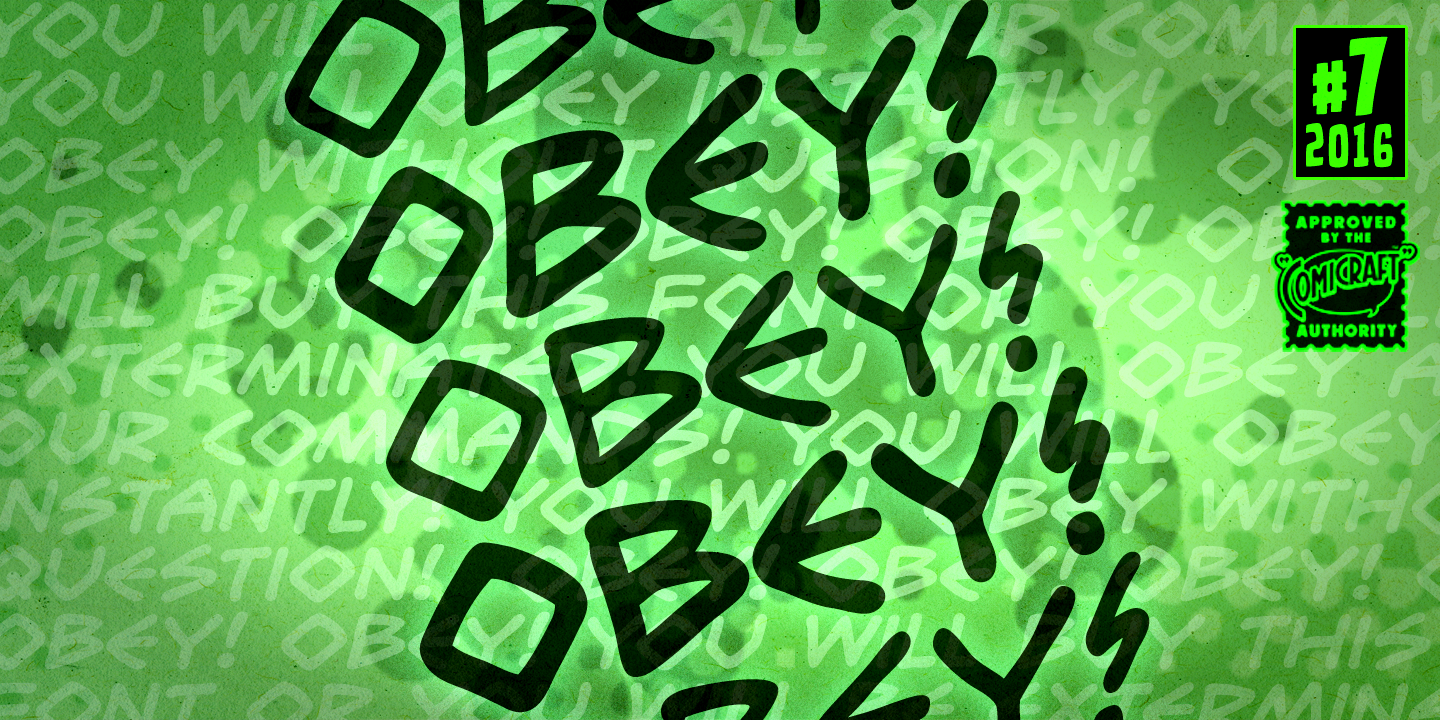
Obey Obey Obey Font is ideal for bold streetwear brand logos, urban graffiti-style designs, rebellious music festival posters, edgy social activism campaigns, powerful protest materials, underground art gallery displays, counter-culture magazine headers, and provocative artistic expressions. Its commanding authority makes it perfect for projects celebrating resistance and bold statement-making.
What makes Obey Obey Obey Font exciting is its powerful ability to command attention and provoke thought through boldly assertive letterforms that demand recognition with unwavering intensity and rebellious spirit. The authoritative construction features strong geometric elements with commanding presence that captures the essence of urban activism and artistic rebellion. This typeface embodies cultural resistance and bold expression, making every design feel powerfully provocative and unapologetically bold.
Obey Obey Obey Font family includes Regular, Bold, Stencil, Distressed, Impact, and Revolutionary variations, providing designers with comprehensive tools for creating compelling resistance-inspired typographic compositions that challenge conventional design norms.
Command attention with the revolutionary power of Obey Obey Obey Font Free Download. This provocative typeface brings urban rebellion to any creative project, whether you're developing brand identities for alternative culture brands, crafting promotional materials for artistic movements, or designing graphics for social causes. The font's resistance-inspired architecture and commanding presence make it essential for projects requiring bold statement appeal. Obey Obey Obey Font perfectly captures the essence of cultural rebellion while ensuring maximum visual impact across all provocative applications. Its authoritative character forms and revolution-inspired design language make it ideal for brands seeking to communicate bold resistance and artistic courage, delivering memorable results that challenge audiences and create powerful connections with people who appreciate artistic rebellion, cultural resistance, and the bold spirit of questioning authority through creative expression.